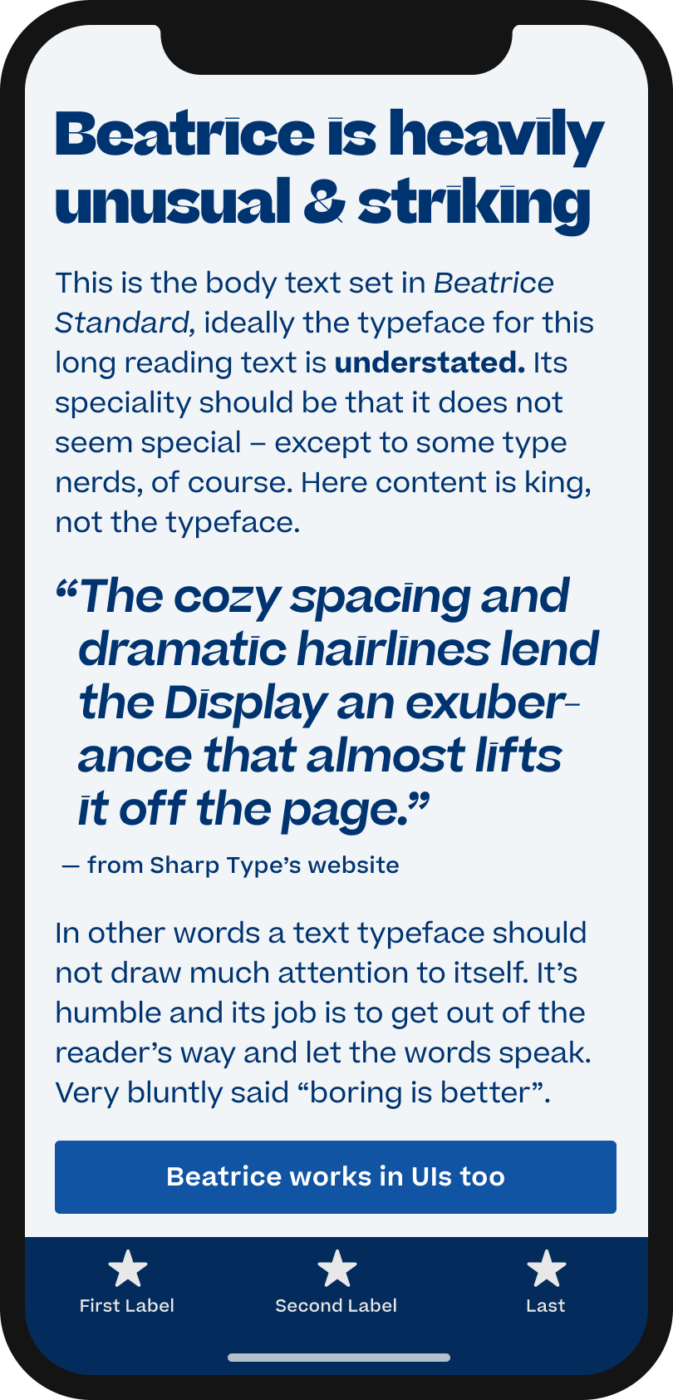
Sans-Serif super-family
from Sharp Type
designed by Lucas Sharp with Connor Davenport, Inga Plönnigs, and Kia Tasbihgou
58 Styles
4 Optical sizes
7–8 weights: Thin to Bold or Black
with matching italics
Best for
- Headings (display text)
- Long reading text (body text)
- User Interfaces (functional text)
Specialty
This versatile sans-serif super-family, plays by its own rules for contrast. It can be loud and striking, but also quiet and serving.
My thoughts on Beatrice
The sans-serif typeface Beatrice by Sharp Type is extremely contrasting and unusual. Why? Because this super-family sets its own rules for contrast. It does not follow the standard, where horizontal lines are thinner than vertical ones. Neither is it a reverse contrast typefaces, like Stadio Now or Antipol. It is something different.
For Beatrice Sharp Type coined the term “Internal Contrast”. With this system, stroke emphasis is set by the location of the stroke in relation to the center of the letter-shape. Outer strokes are thick, inner strokes are thin. This results in a charming, playful and striking typeface.
And since high contrast only works for very large text, Beatrice comes in four different optical sizes. Display is the most flashy, with its hairline strokes, and should not be set smaller than 60 pt or 80 px. This makes it rarely useful for web design. Luckily, there is also a Headline and a Deck style, which work in sizes between 30 and 80 px.
When it comes to body text, Beatrice Standard is the way to go. It is almost calming, not so say boring, but that’s what it’s supposed to be here. The large x-height and the study shapes make it very versatile, even for UI design.
Another thing worth highlighting, are the expressive italics. They are very organic and playful, breaking what is expected from a typeface that is built upon the foundation of the sober American Gothic. If that is too much for you, Beatrice also comes with oblique alternates. Overall, a typeface with heavy opposites and surprises, shining in loud identity projects, and still performing in quiet copy.
Back to Beatrice, I can’t choose which option is the best. Italic is surprisingly super, which I didn’t expect from such a heavy-lifting, pardon, type! Oblique alternates are a true masterpiece.
Even in the Display version the contrast between thick and thin works, despite being opposite. And it’s not grumpy.
words: “large” where a, r, and g dance, then word “oblique” where i is an identity itself…